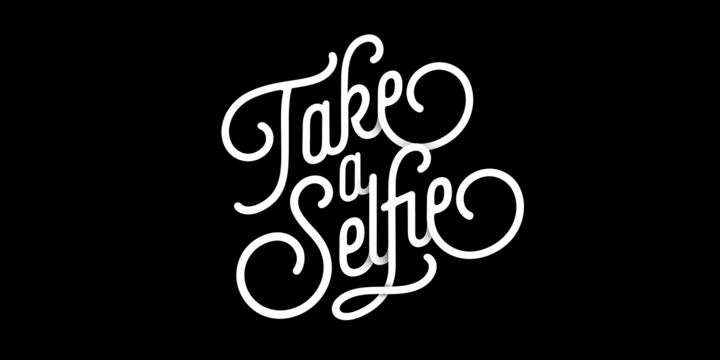
Selfie Font Family
Allow me to take a Selfie!- sung the girl in the song and probably all of us at some point this year. While certain terms and actions may be fashionable, certain font styles also do this. Combining both is not impossible or rare- it actually happens quite frequently!
Selfie is an open sans serif font inspired by old signage scripts found at Galerias of Buenos Aires – small shopping centers used as shortcuts by pedestrians to travel further into the city.
Selfie Script Font Family